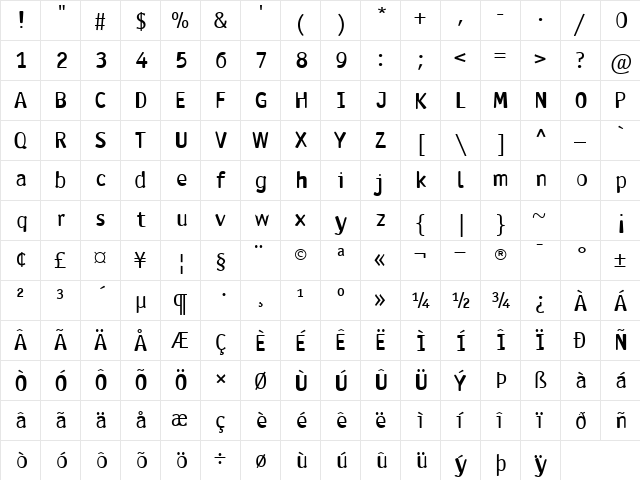
Antaviana Bold
Design Context for Antaviana Typeface
Antaviana offers clean, dependable letterforms without strong stylistic allegiance, making it a practical choice for designers who need flexibility. The heavy weight commands attention and anchors typographic hierarchies.